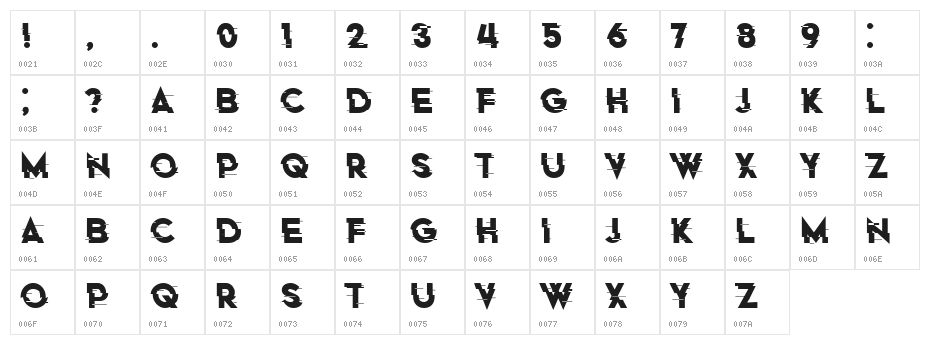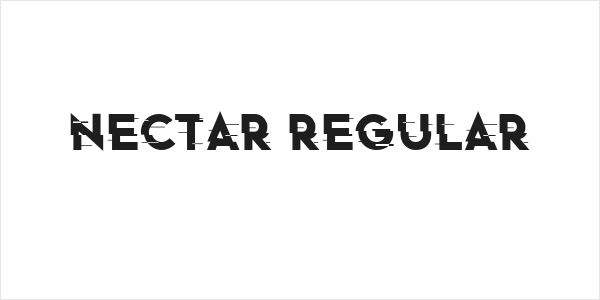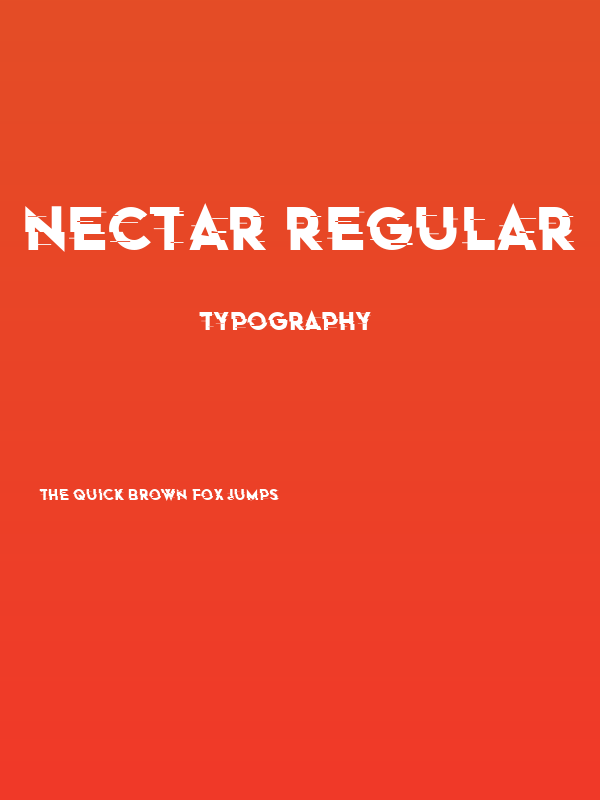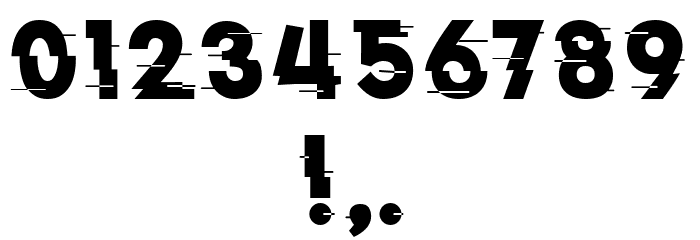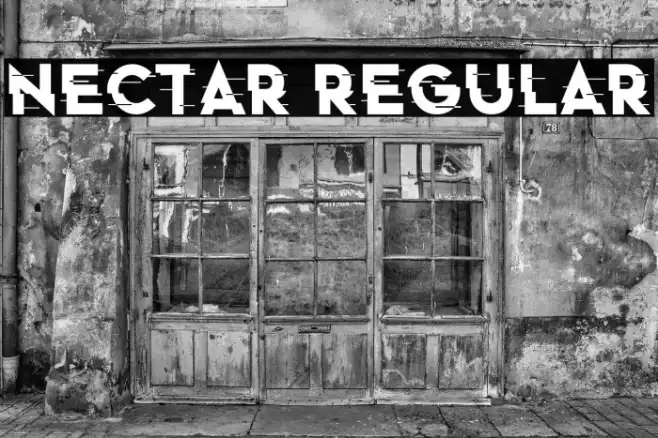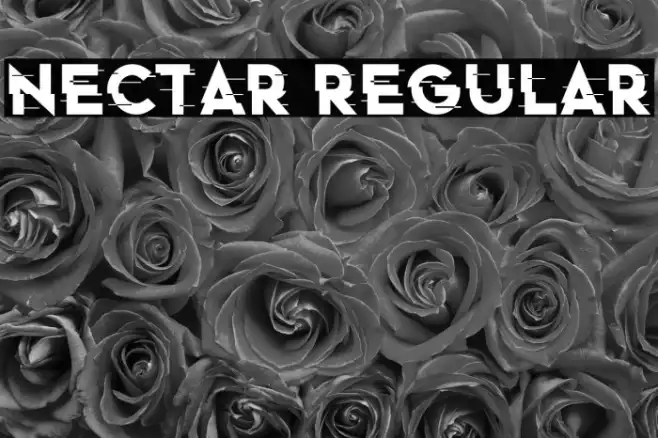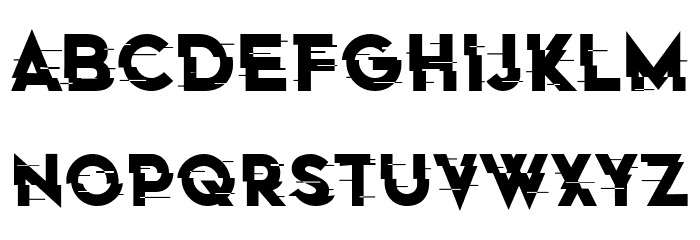
Nectar Regular Font
Nectar Regular Description
This font features a bold and striking design with a modern twist. Each character is presented in a solid, geometric form with a unique glitch effect that slices through the middle, creating a dynamic and edgy appearance. The uppercase and lowercase letters maintain a consistent style, while the numbers and special characters follow the same aesthetic, ensuring uniformity across all elements. The font's bold weight and high contrast make it stand out, ideal for projects that require a strong visual impact.
| Proposed Projects | Ideal for digital art, music album covers, modern posters, and branding that seeks a contemporary and edgy look. |